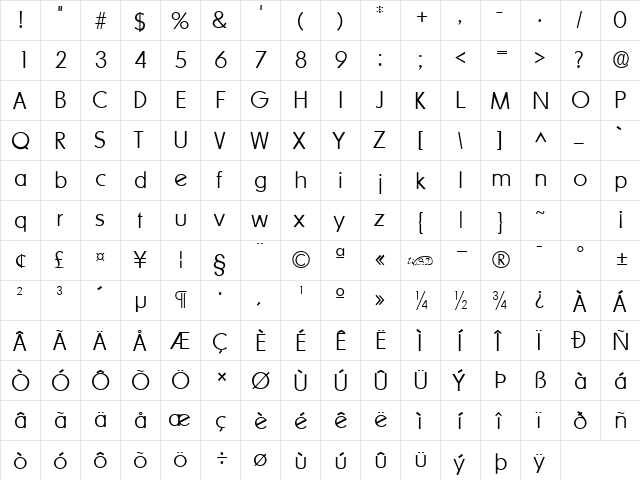
Sharnay Extralight Regular
Design Context for Sharnay Extralight Typeface
Sharnay Extralight offers clean, dependable letterforms without strong stylistic allegiance, making it a practical choice for designers who need flexibility. Its slender proportions lend an understated elegance to any composition.
Pro Tip: Use Sharnay Extralight in both headline and body roles to test its range before committing to a single application.